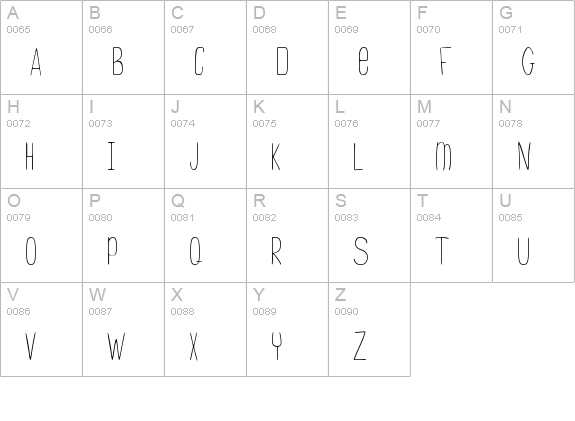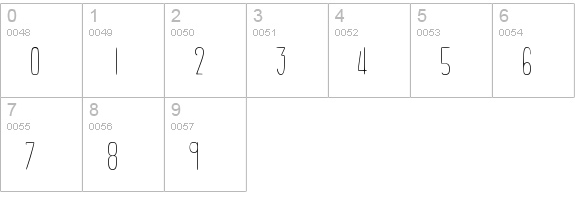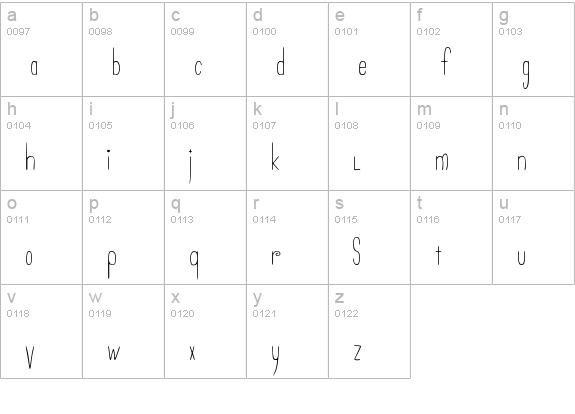
Never Regular Font Details
Never Regular is the standard, neutral variant in the Never typeface family \xE2\x80\x94 well suited to general body text, paragraphs, and standard typographic work.
Introducing Never Regular font, a versatile typeface that effortlessly combines elegance with a touch of quirkiness. Its clean lines and unique curves make it a perfect choice for both professional and creative projects. Never Regular font stands out from the crowd with its modern yet timeless design, making it suitable for a wide range of applications. This font is available for free download exclusively at FontsMarket.com, where you can easily access and enhance your design projects with this stylish typeface. Whether you are working on branding, packaging, invitations, or any other design project, Never Regular font is sure to add a touch of sophistication and charm. Download it today and elevate your designs with this exceptional font.